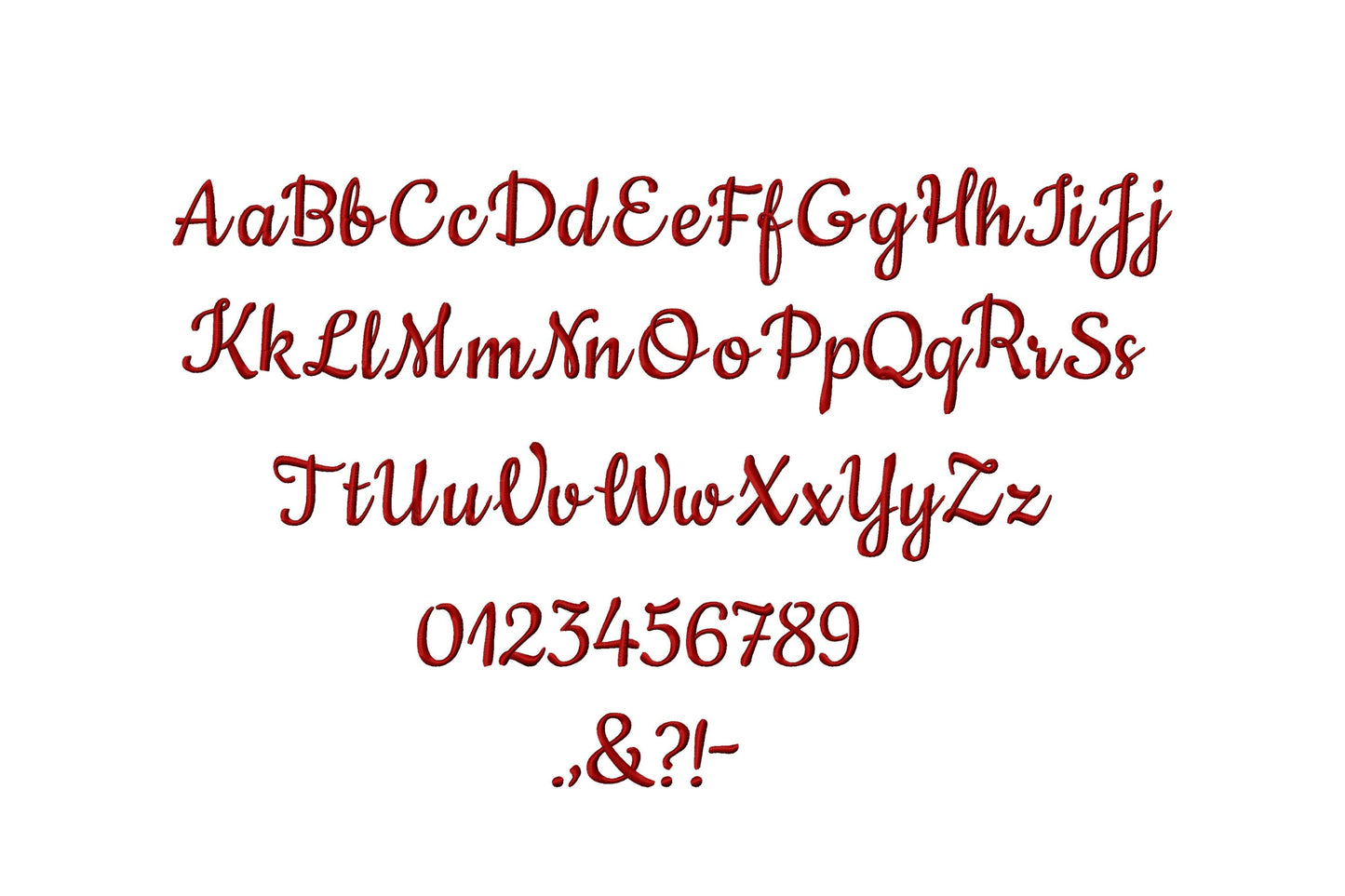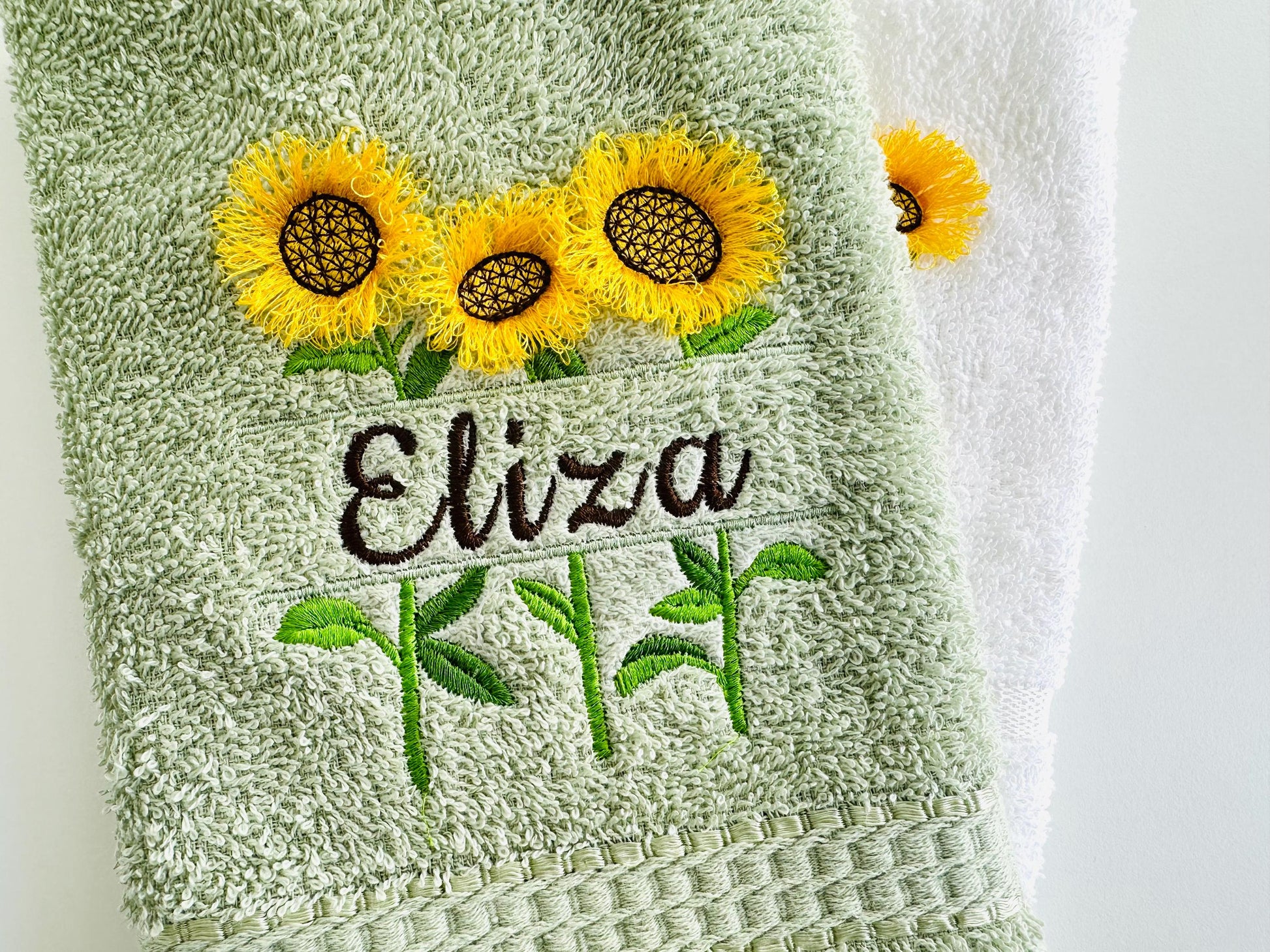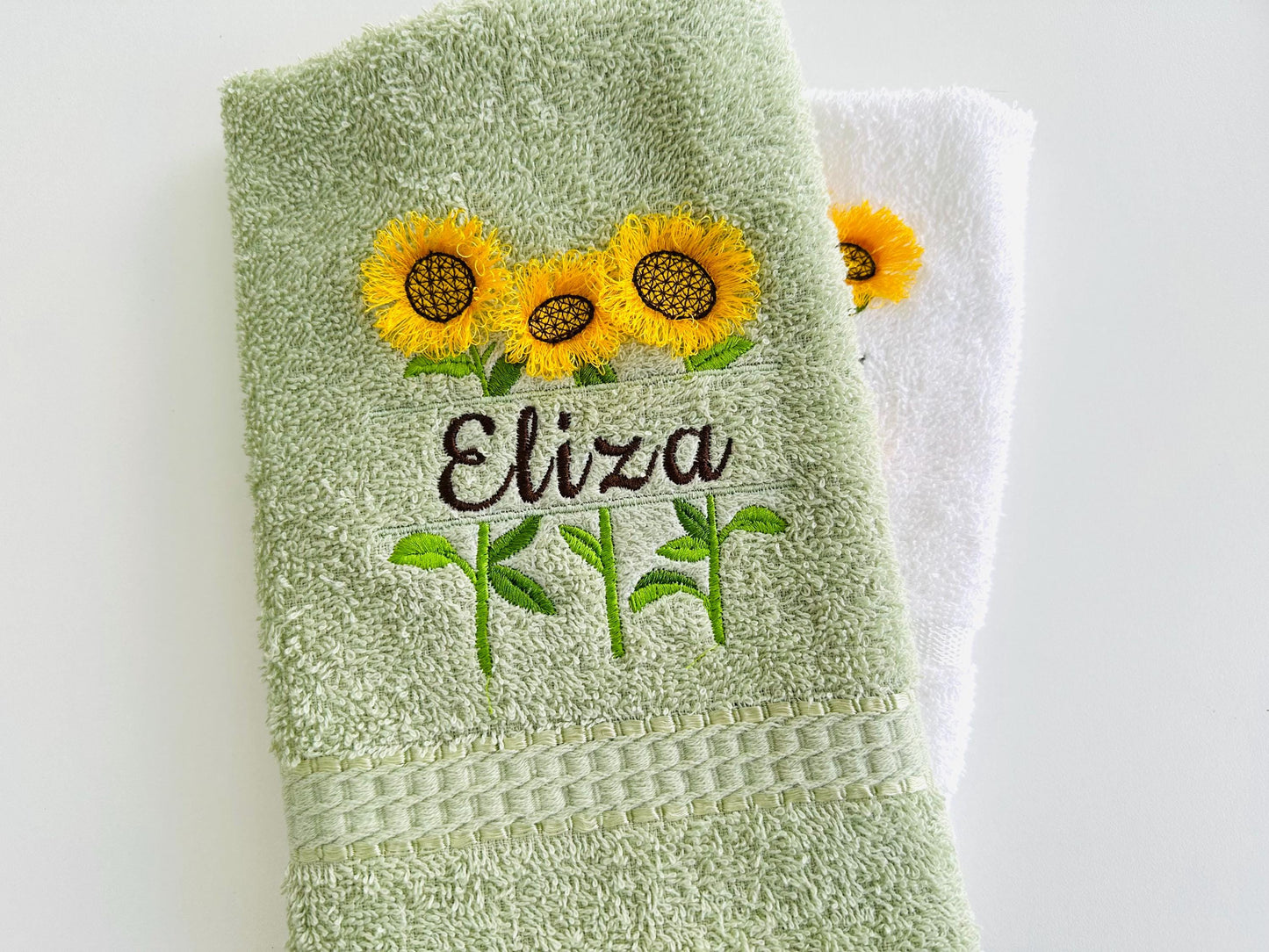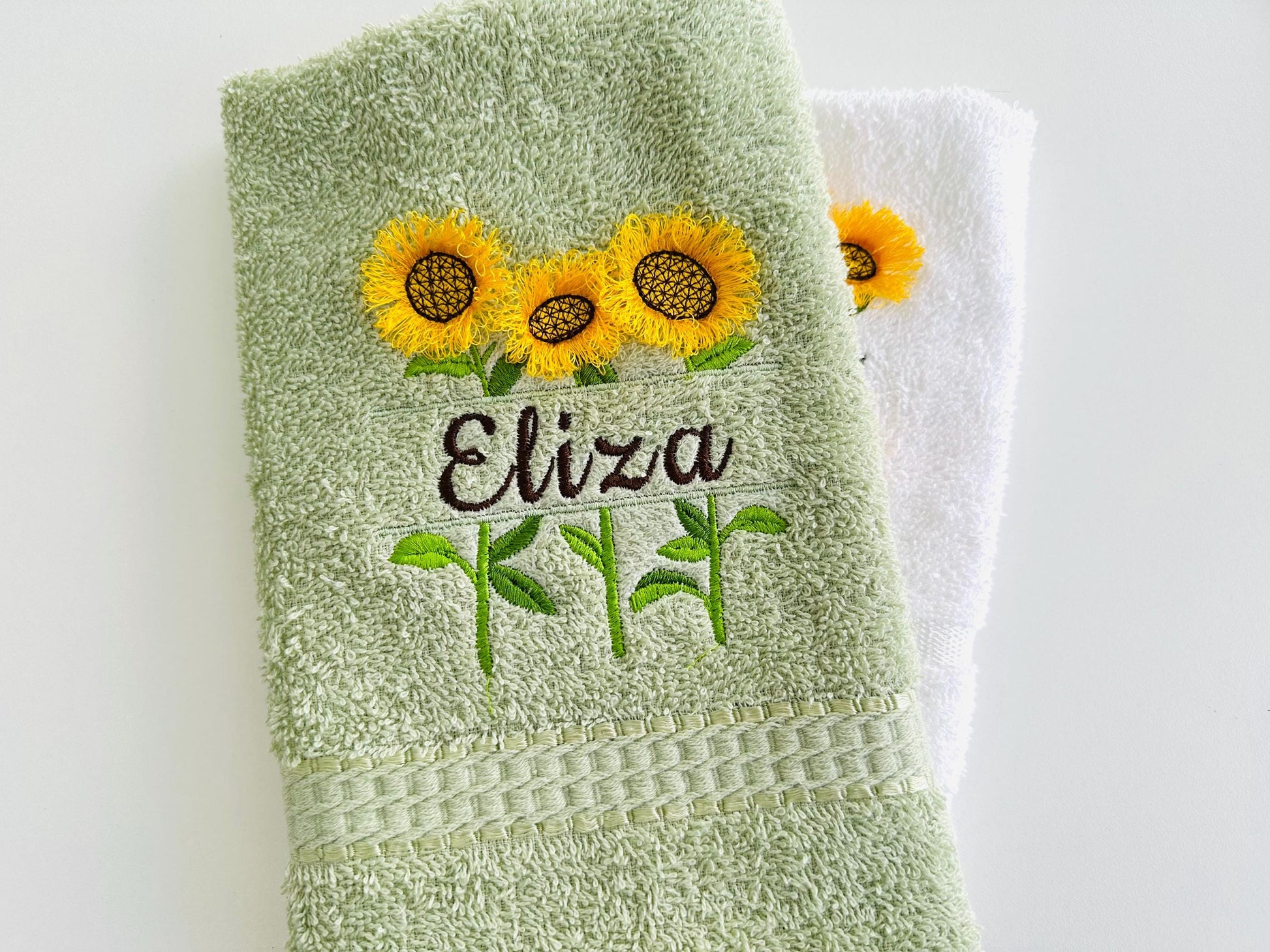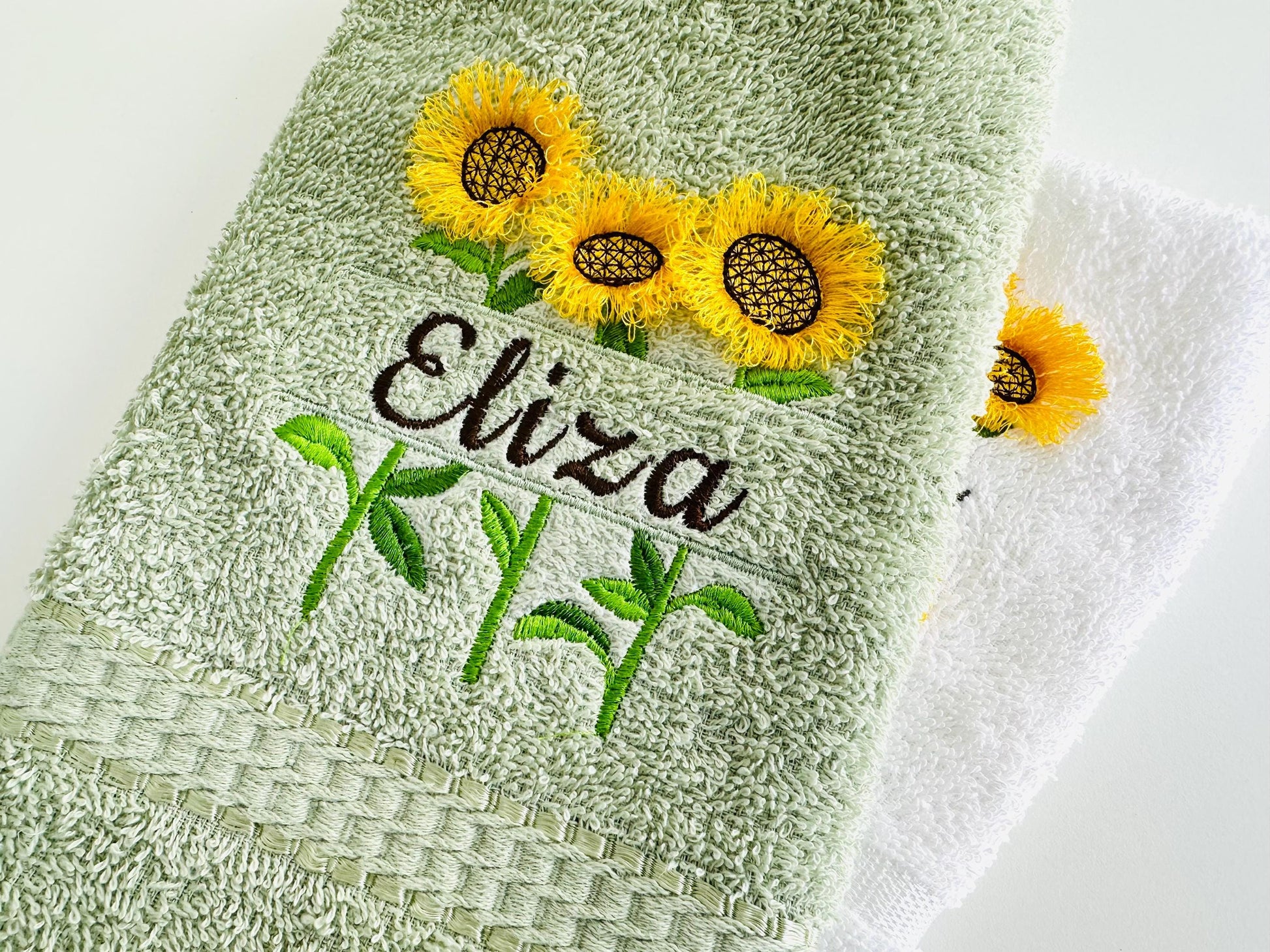
Split Sunflowers and Mini Font Set Fringed Fluffy Fringe Sunflower
Or click to open the linkA split sunflower with fluffy fringed petals and a tiny matching font to put a name in the middle. Sweet on kids' shirts, tote bags and pillows.
The sunflower comes in three sizes: 4, 4.5 and 5 inches. The mini font has uppercase and lowercase letters, numbers 0 to 9 and a few signs, in 0.4, 0.6 and 0.8 inches; any font up to 1 inch also fits. The fringe is cut on the back and fluffed up.